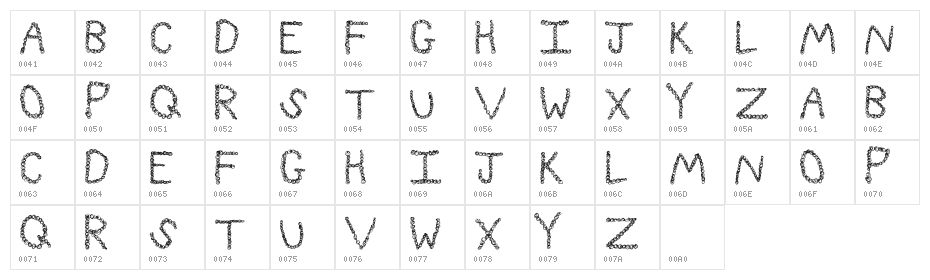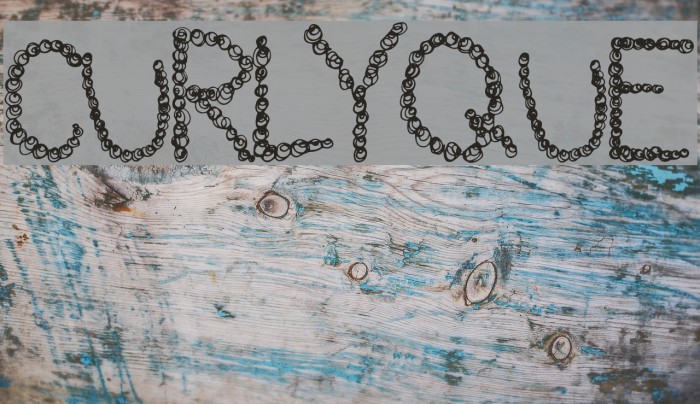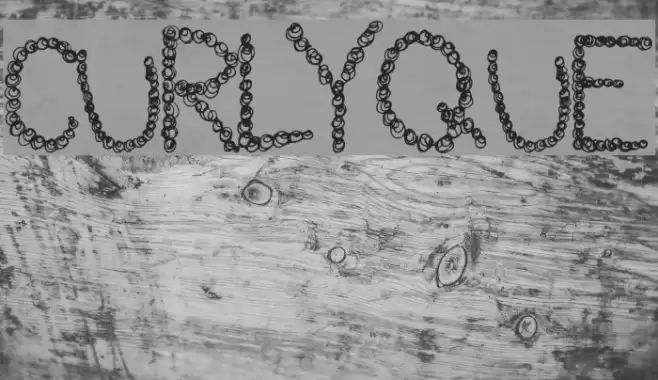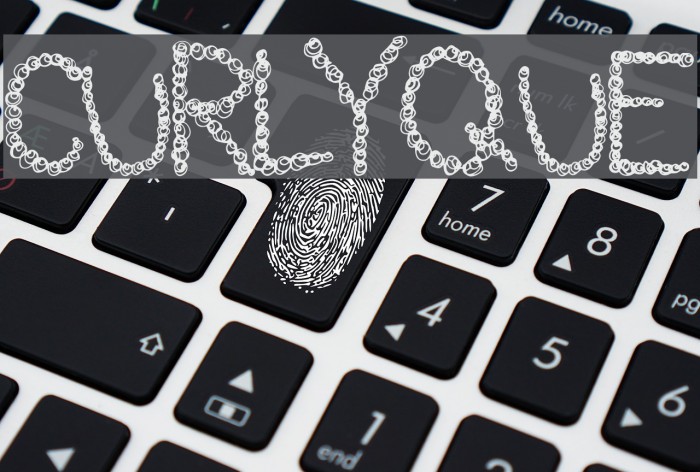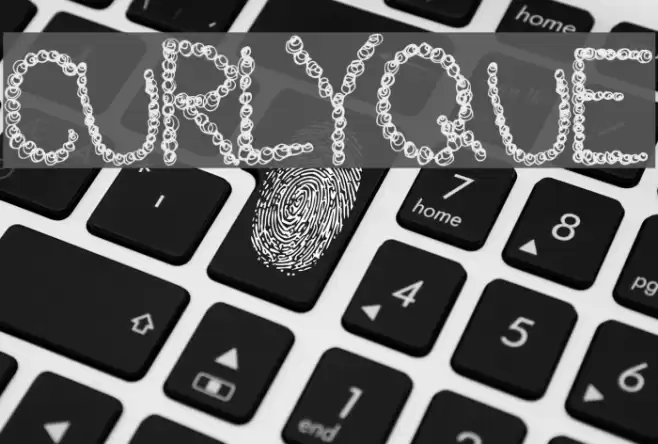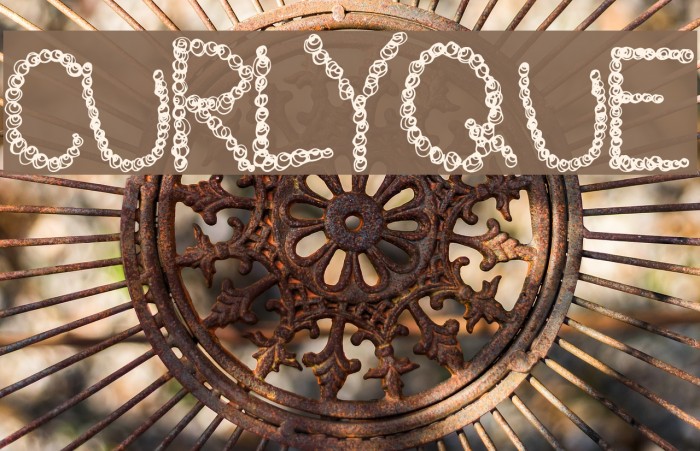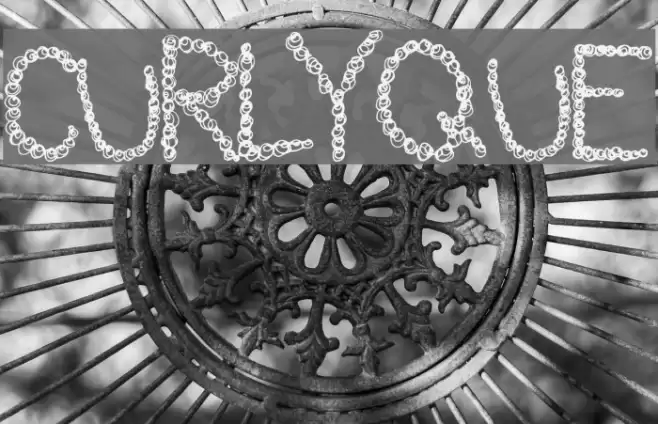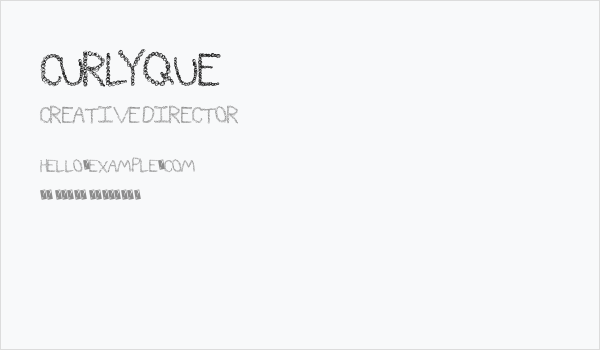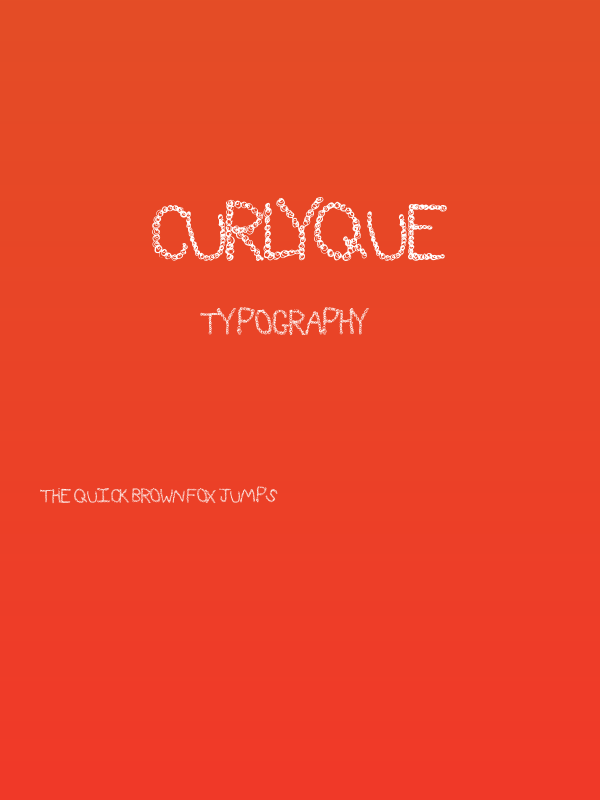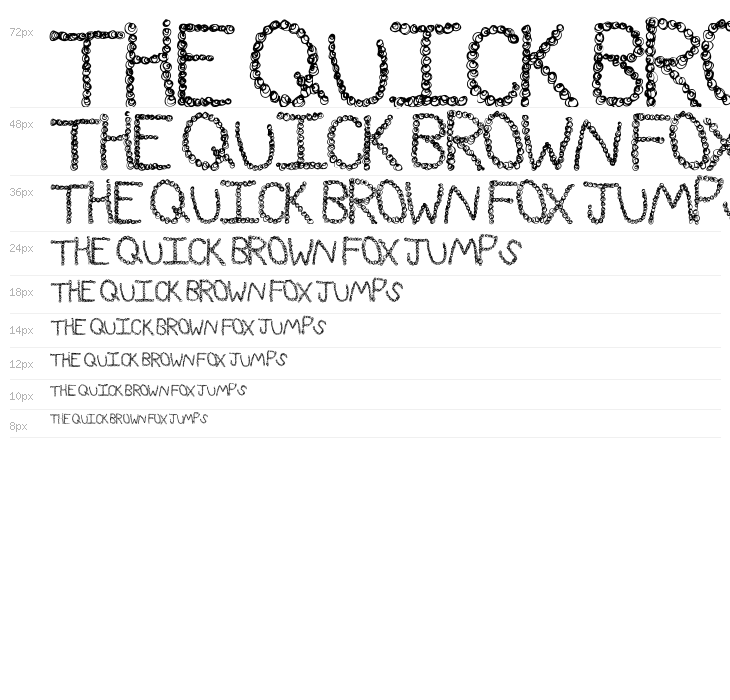
CurlyQue Font
CurlyQue Description
This font features a whimsical and playful design, characterized by its intricate curly patterns that form each letter. The letters are composed of a series of loops and swirls, giving it a decorative and artistic appearance. The style is consistent across both uppercase and lowercase letters, maintaining a sense of cohesion and charm. The font's unique design makes it stand out, offering a sense of creativity and fun. It is ideal for projects that require a touch of elegance and flair, such as invitations, greeting cards, or artistic posters. The font's decorative nature is its most defining feature, making it suitable for eye-catching headlines and titles.
Use CaseHeadlines, Artistic projects, Invitations
Proposed ProjectsIdeal for invitations, greeting cards, artistic posters, and decorative headlines.